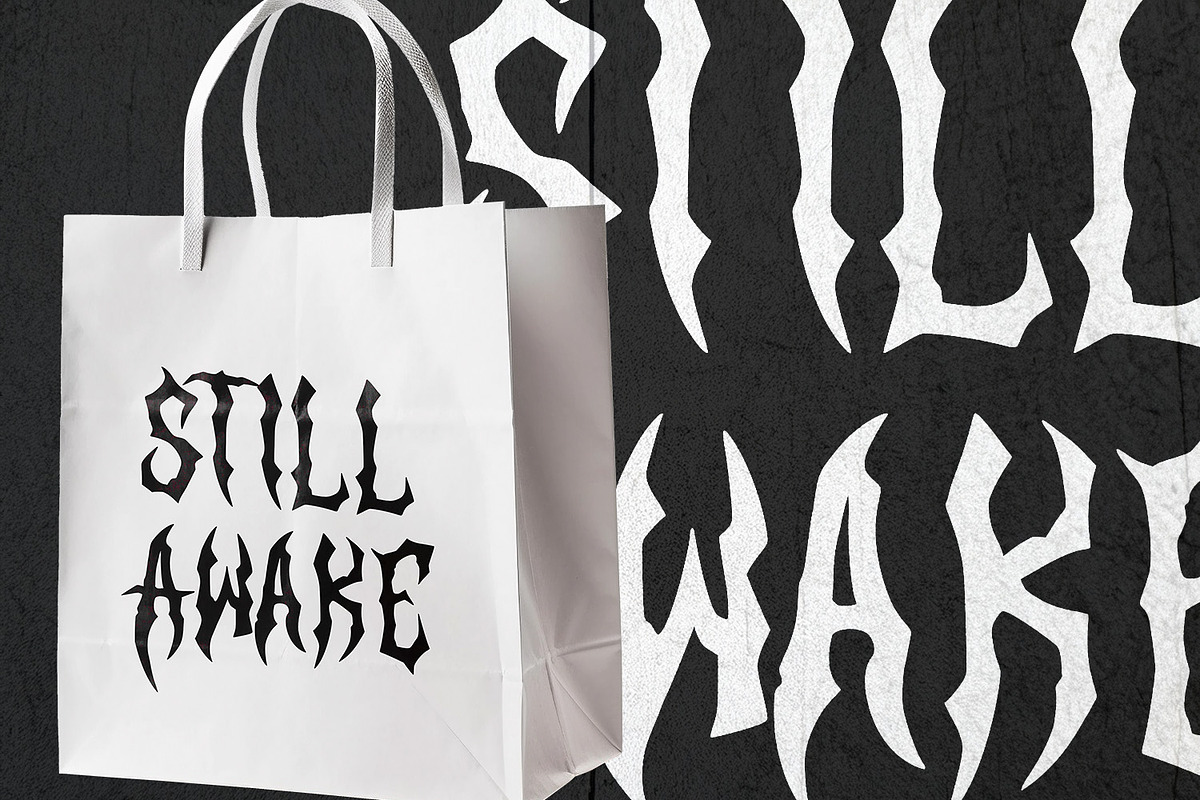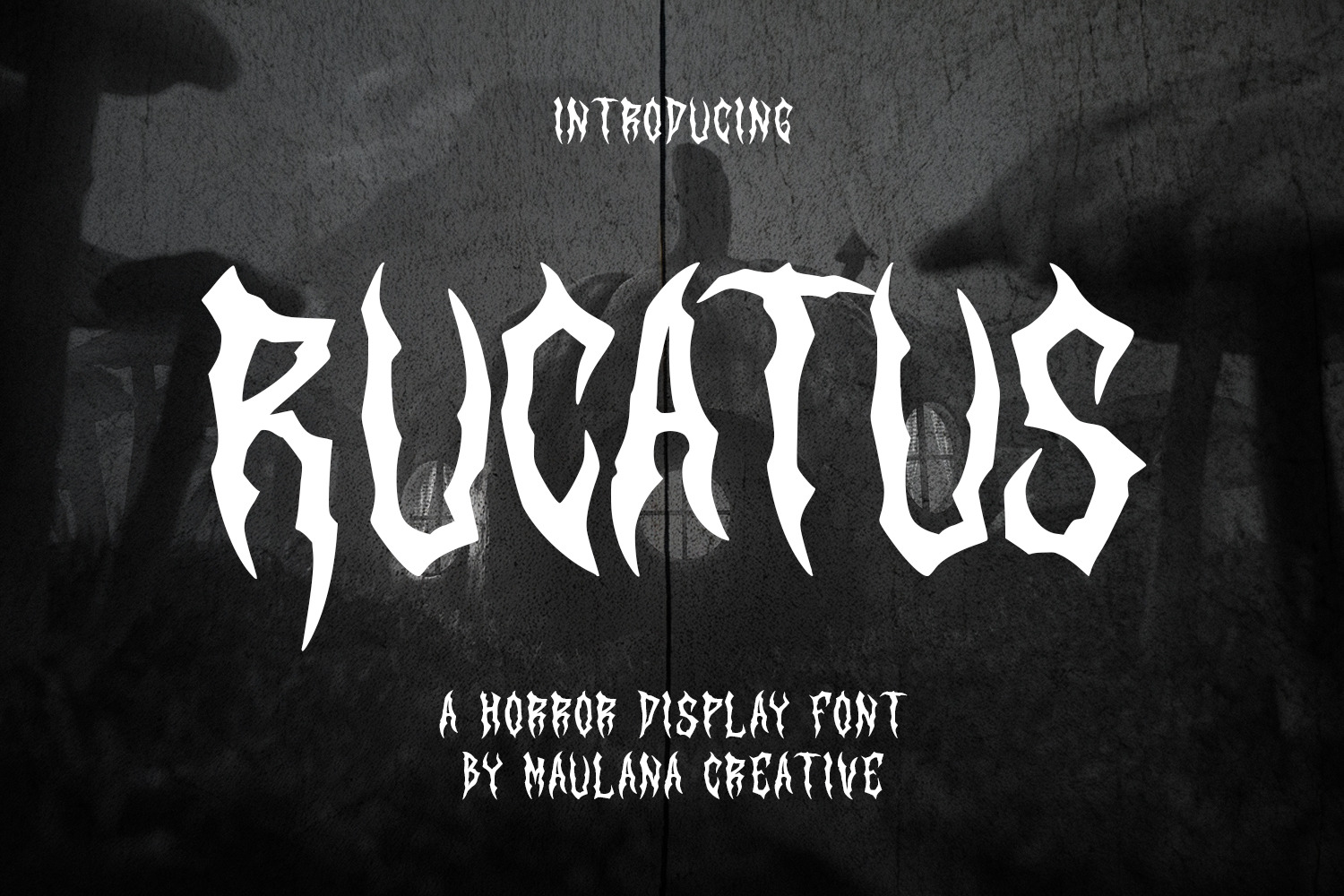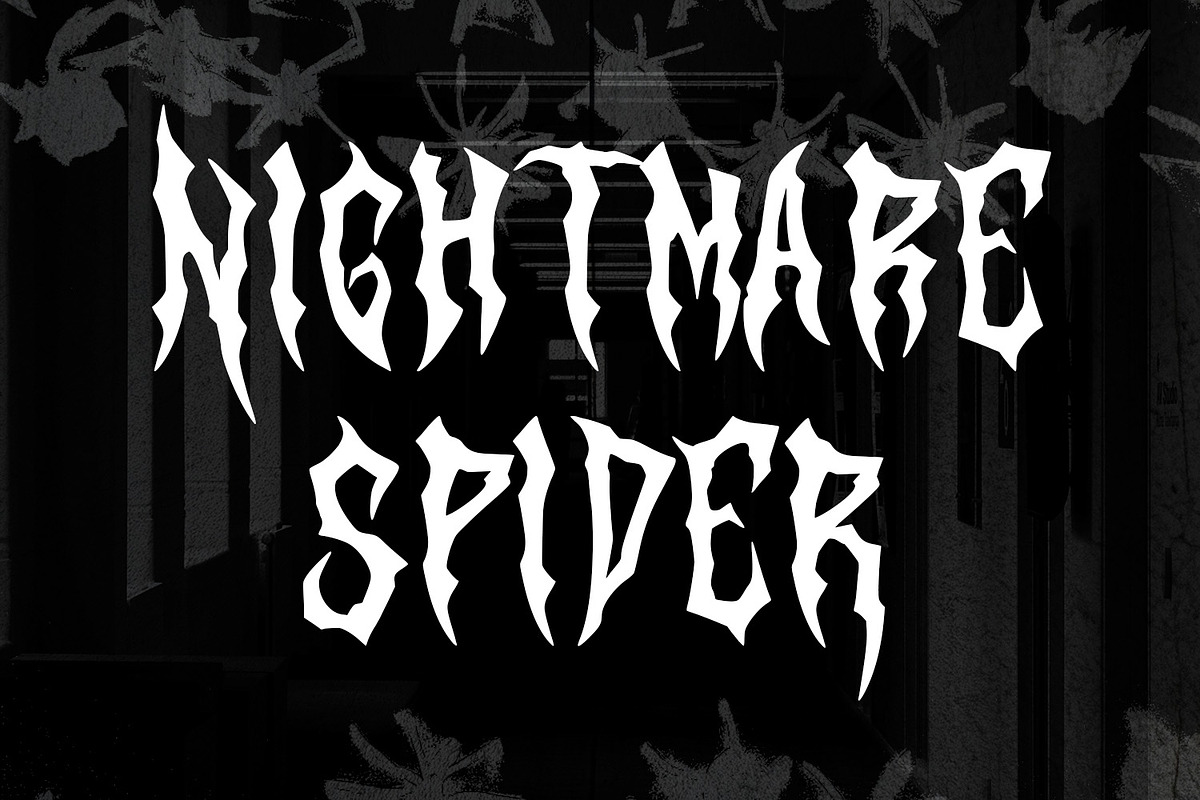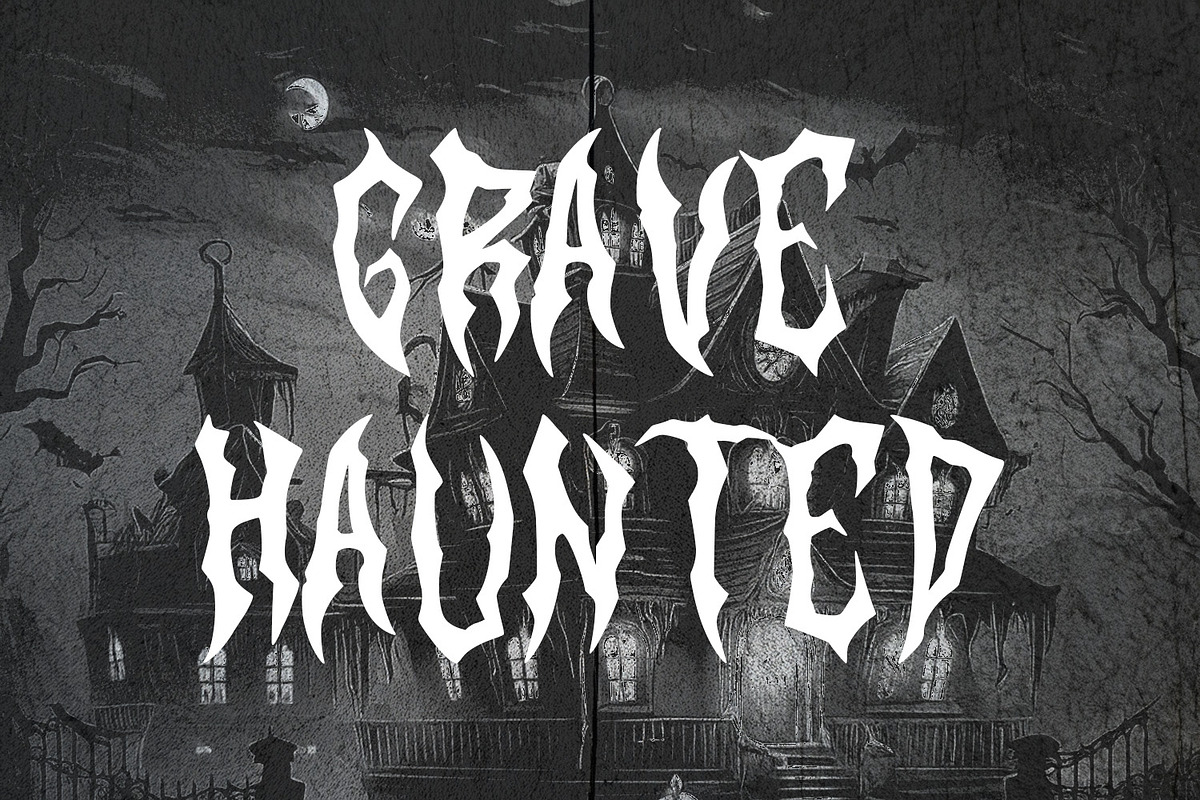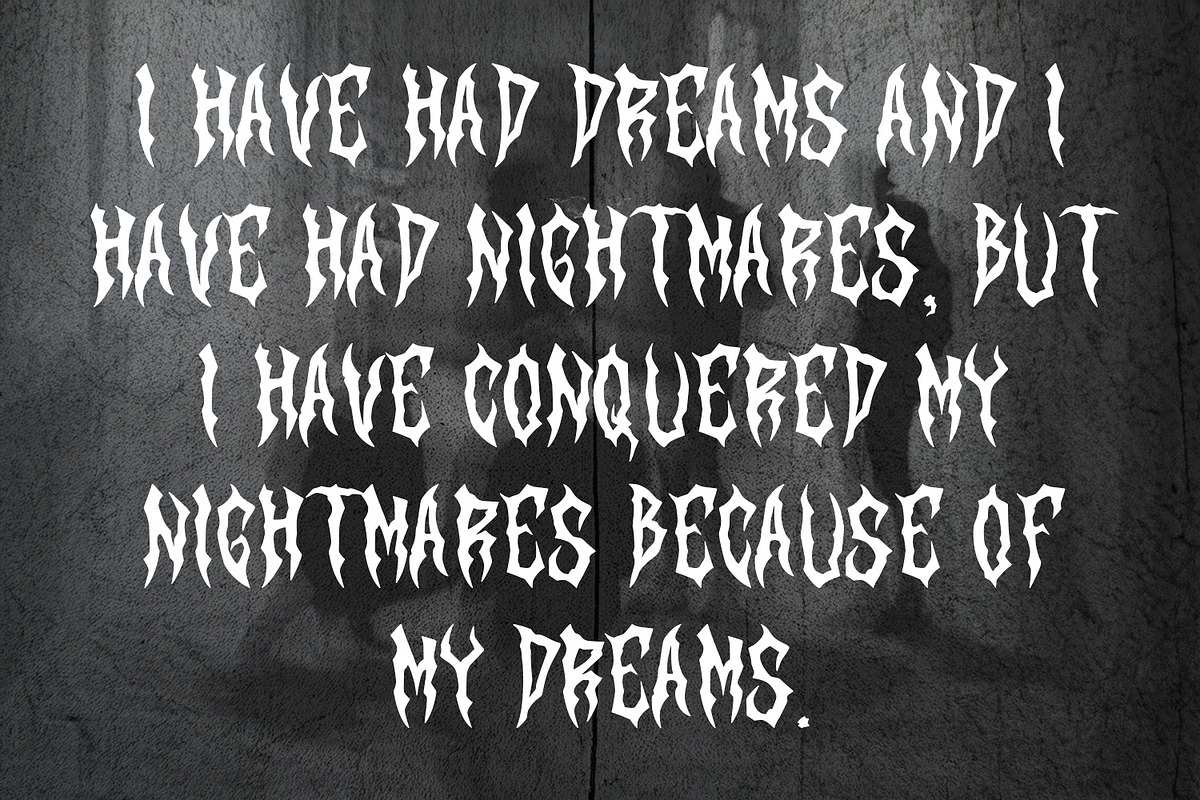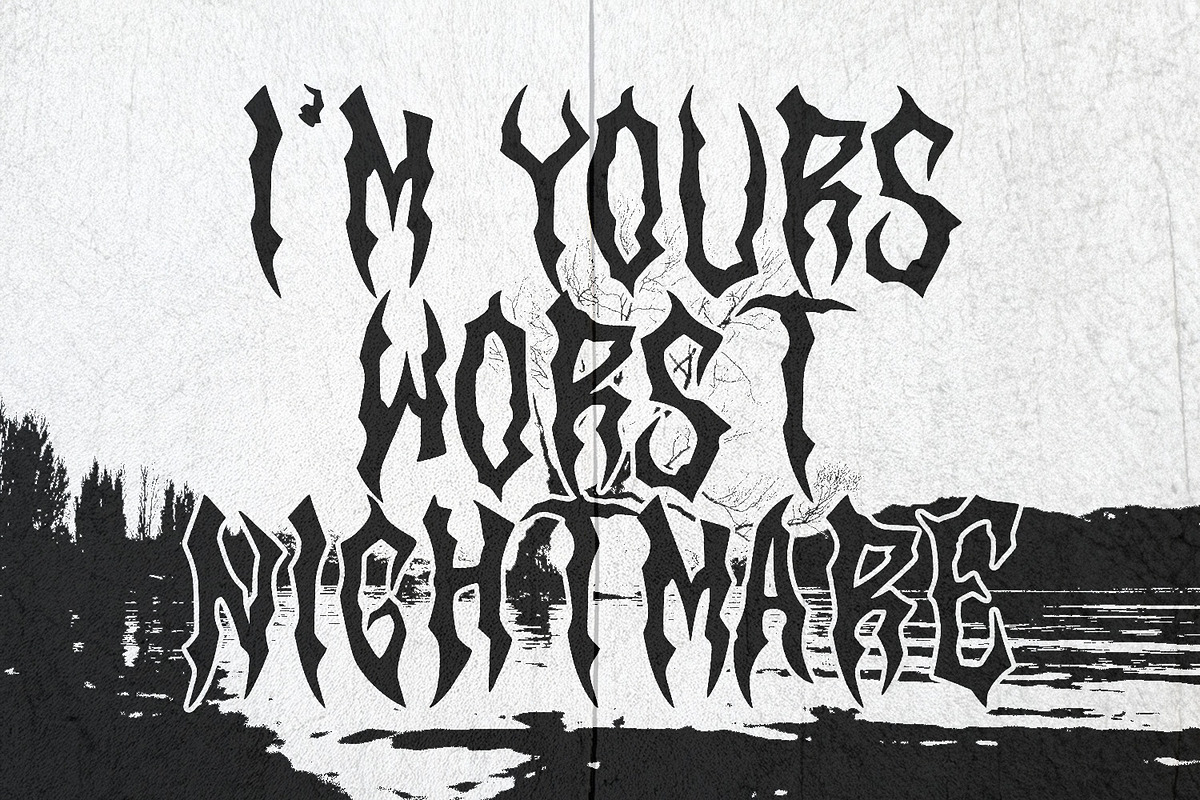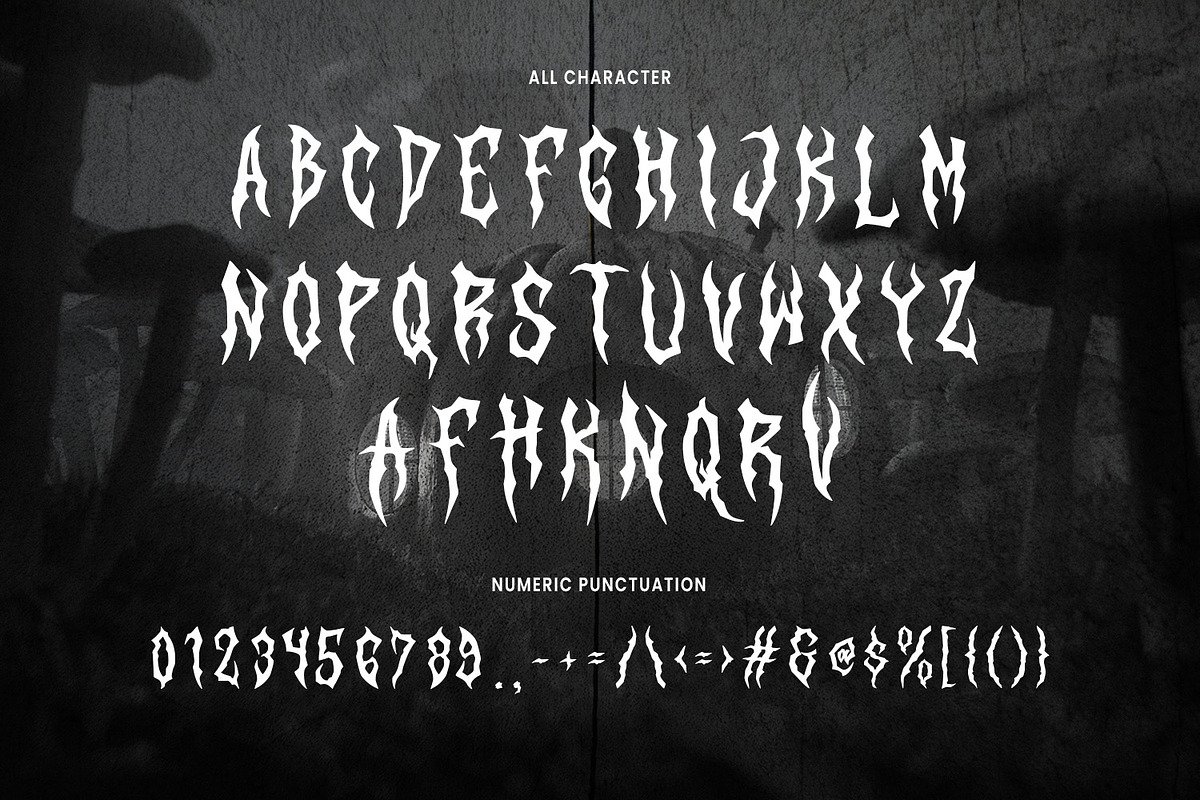
Rucatus Font
Rucatus is a Horror Vibe Decorative display font. With Bold Sharp stroke, Upright and fun character with a bit of alternates. To give you an extra creative work. Rucatus font support multilingual more than 100+ language. This font is good for logo design, Social media, Movie Titles, Books Titles, a short text even a long text letter and good for your secondary text font with Script. Make a stunning work with Rucatus font.